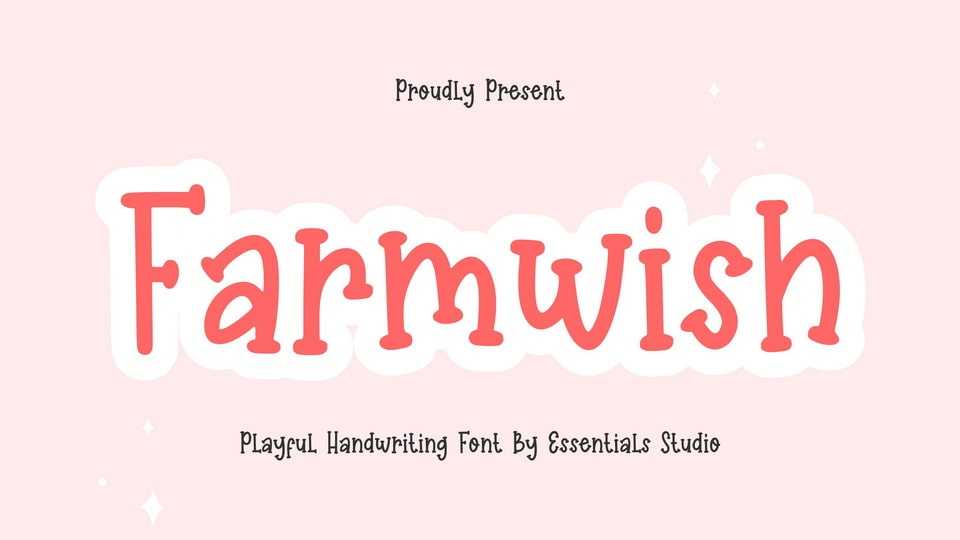
Download Farmwish font, a playful handwritten typeface. Farmwish is perfect for product packaging, branding project, magazines, social media, weddings, or just used to express words above the background.
Designer: Essentials Studio